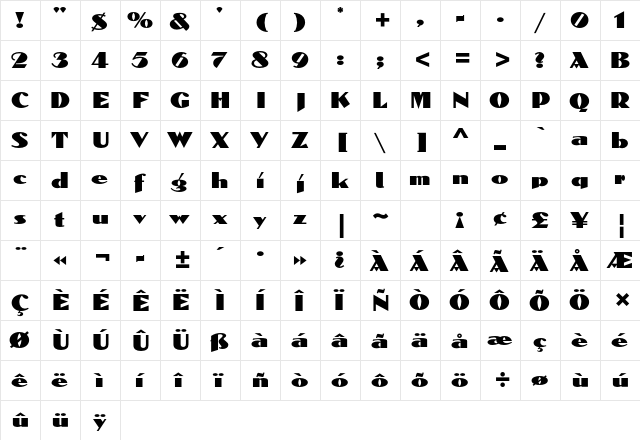
Dolmen Std Regular
Design Context for Dolmen Std Typeface
Dolmen Std is a composed and adaptable typeface that performs quietly and consistently across a wide range of design contexts.